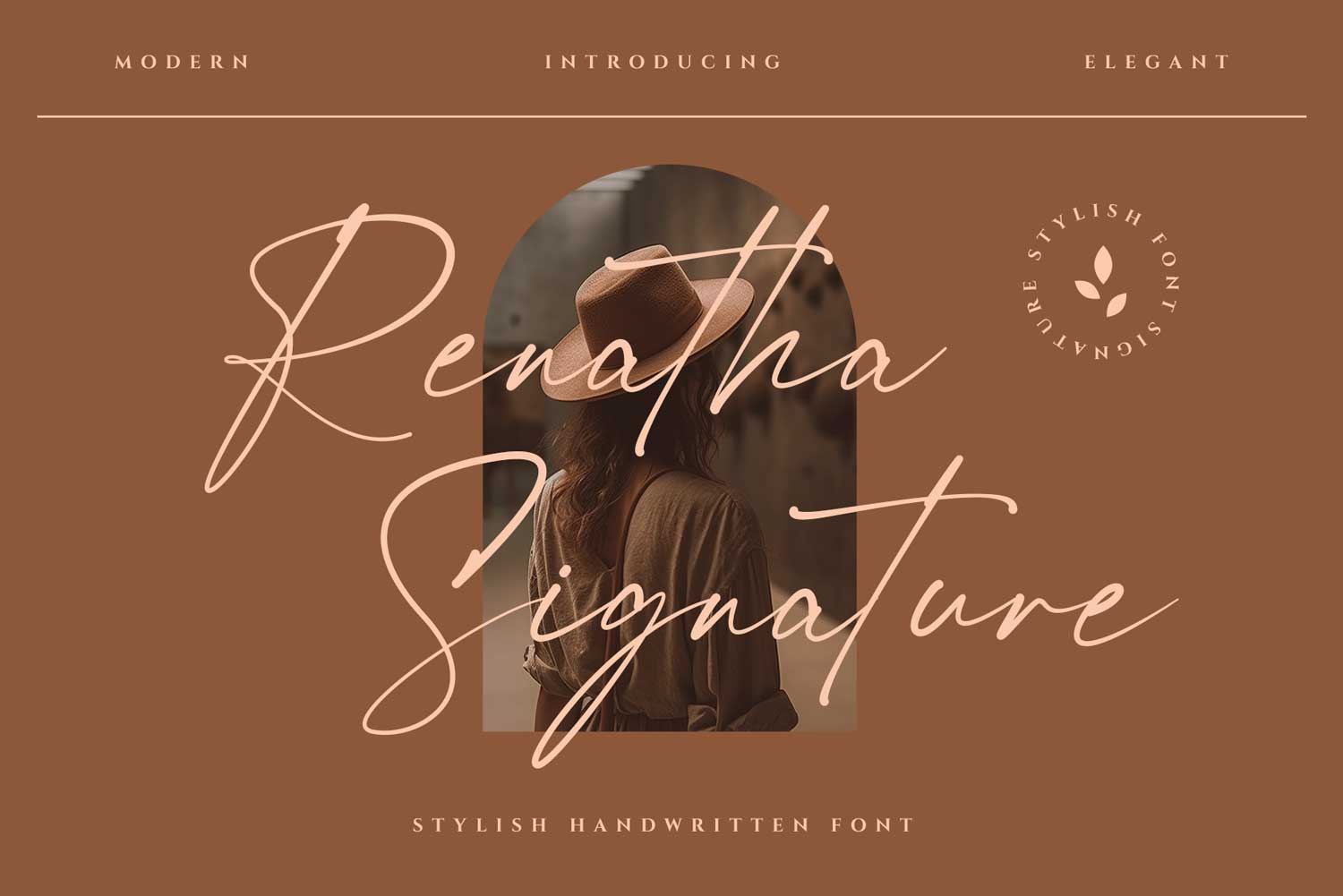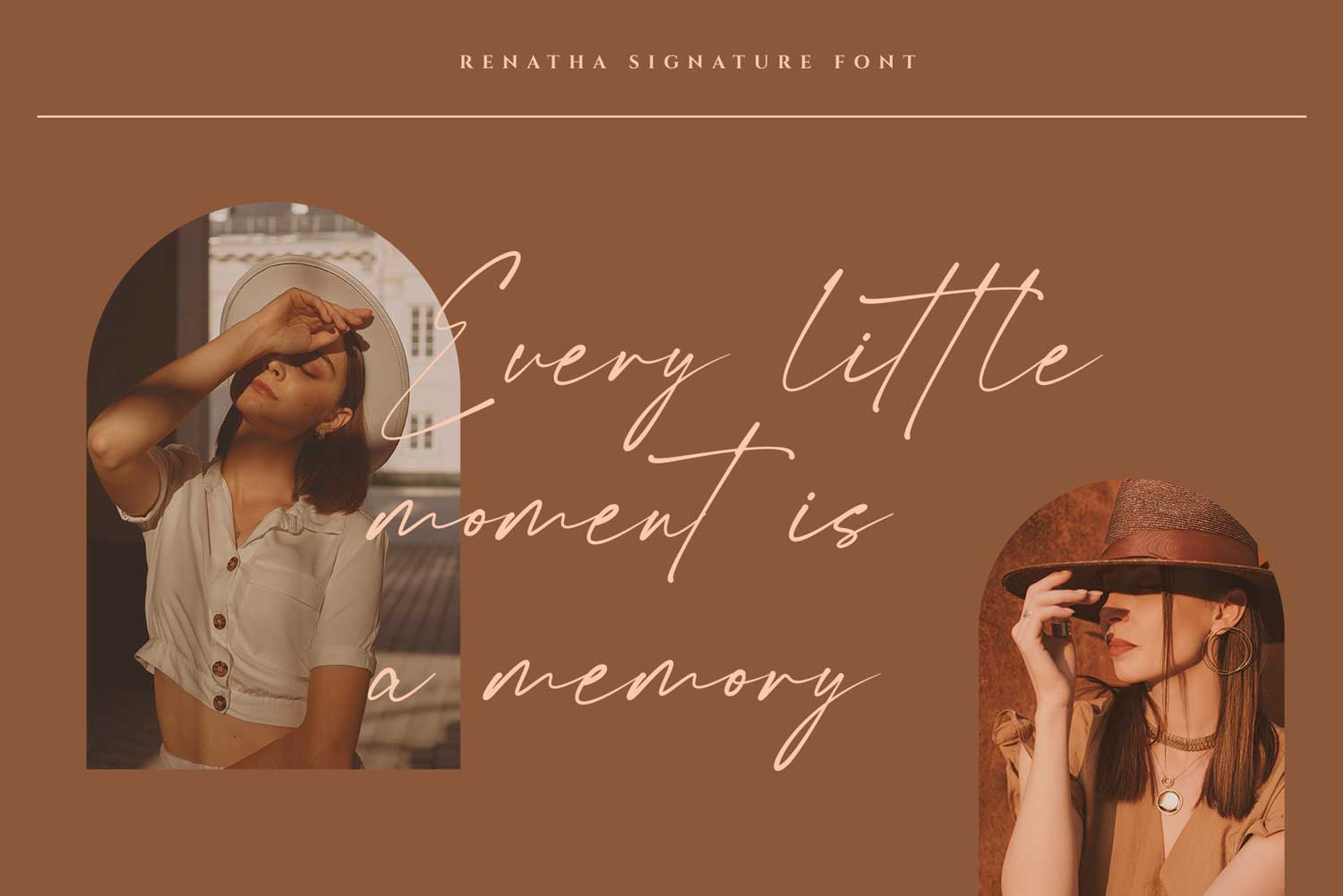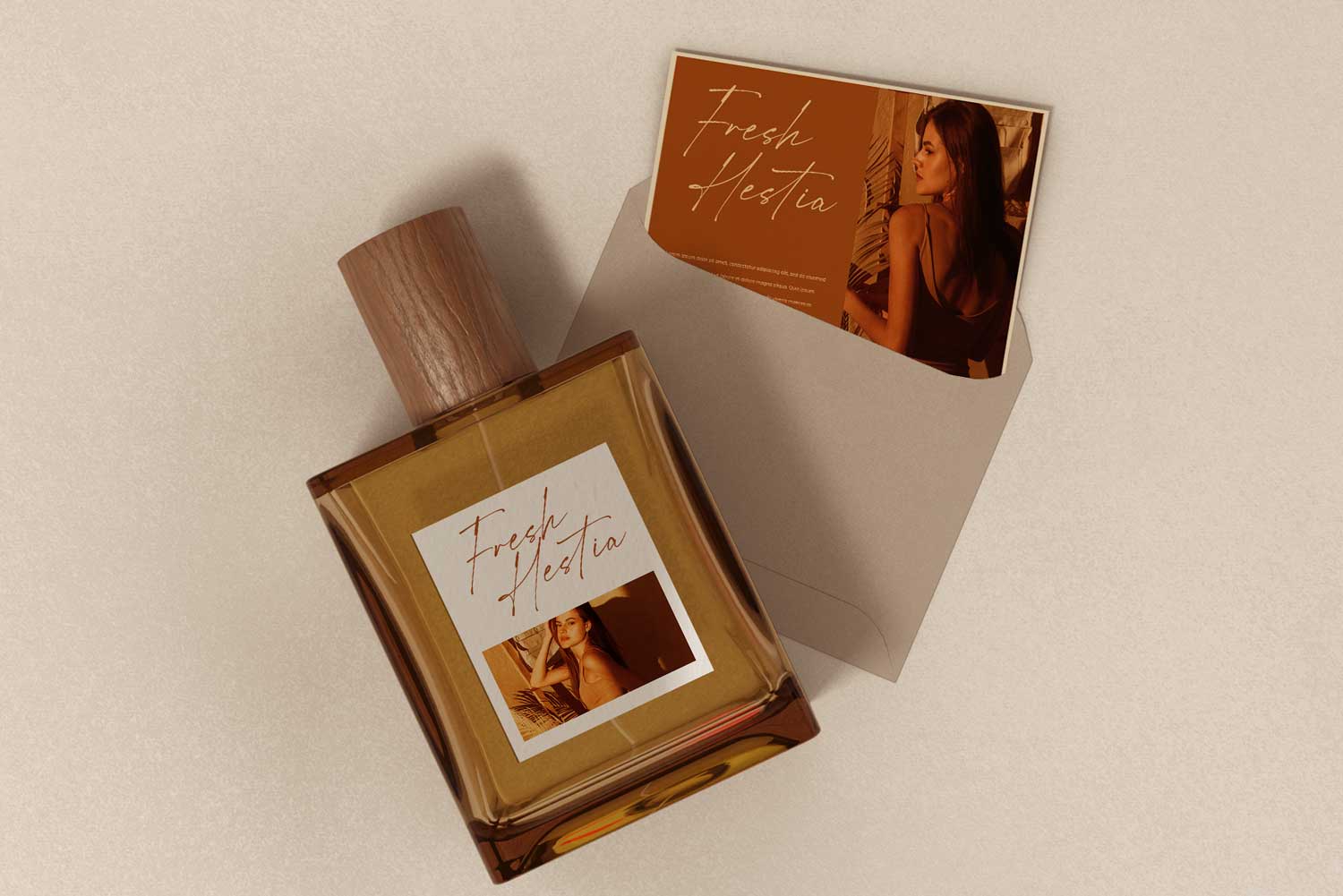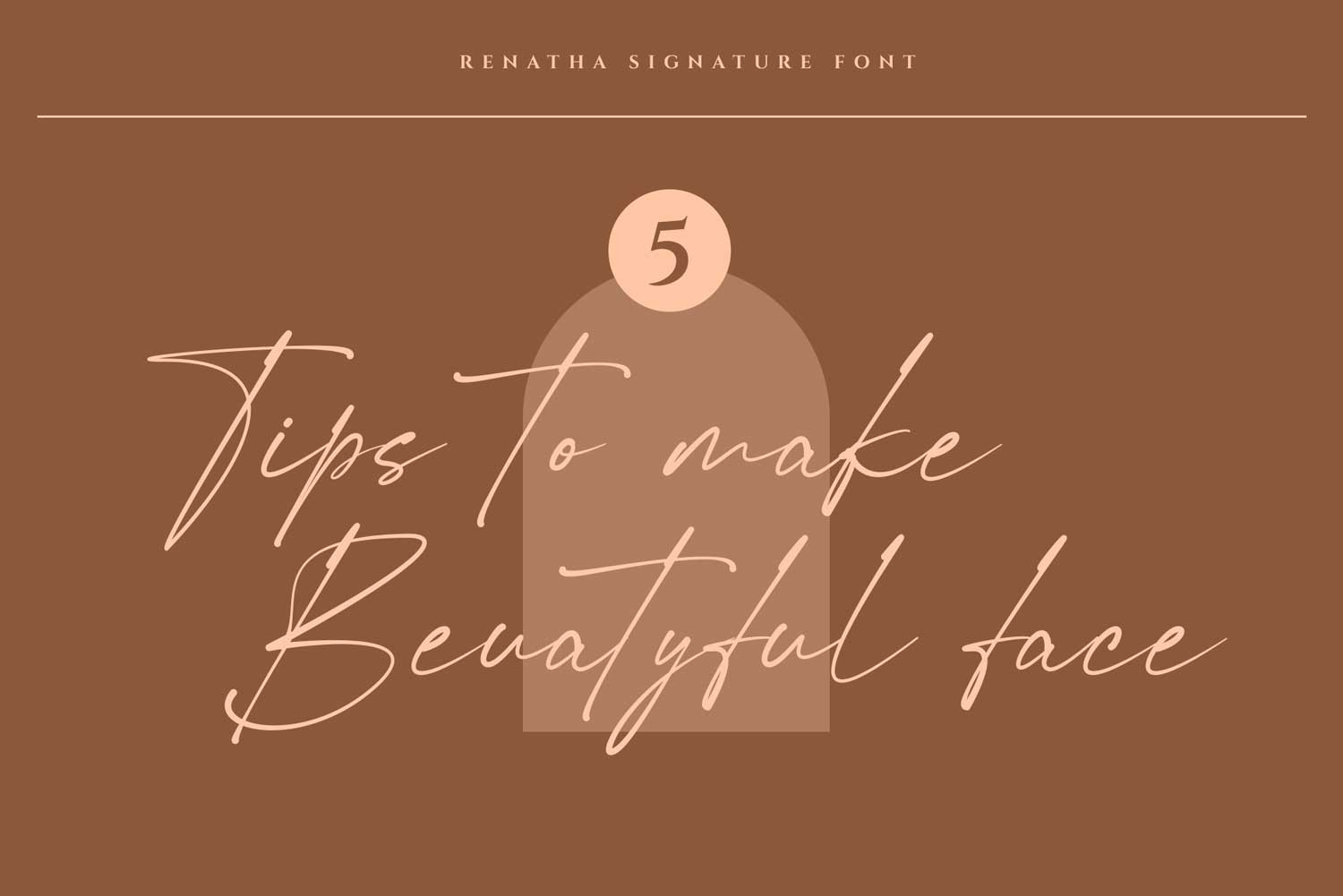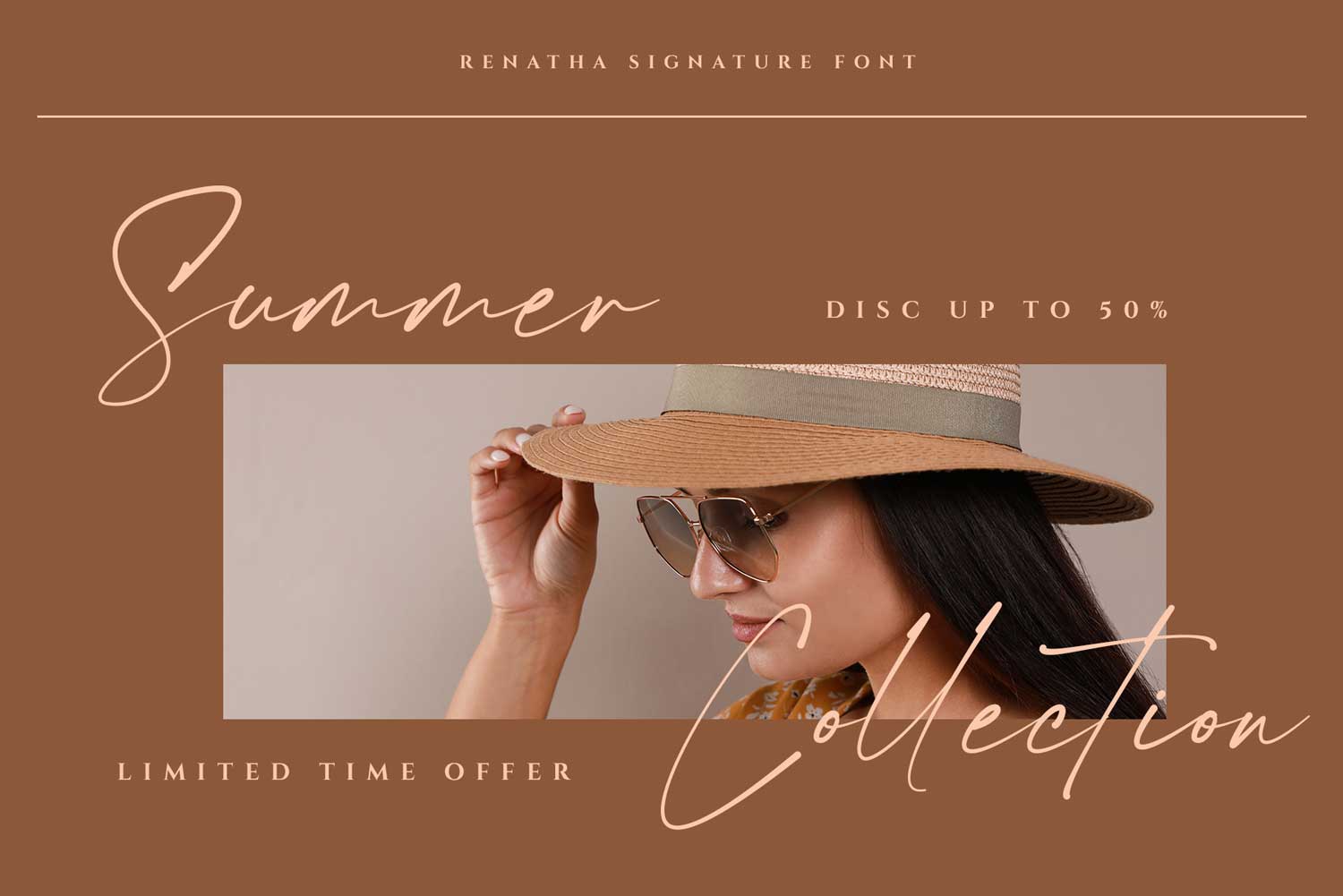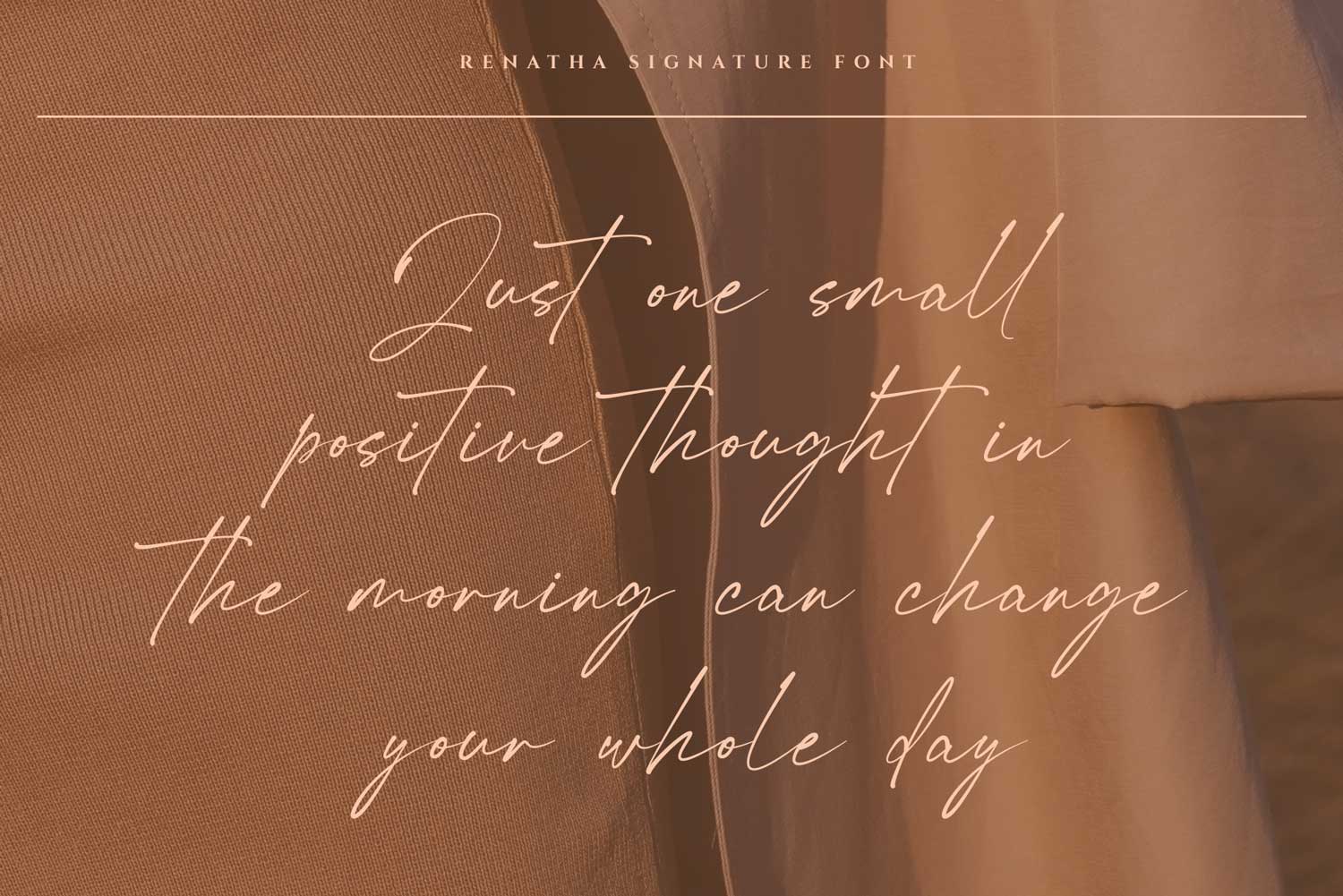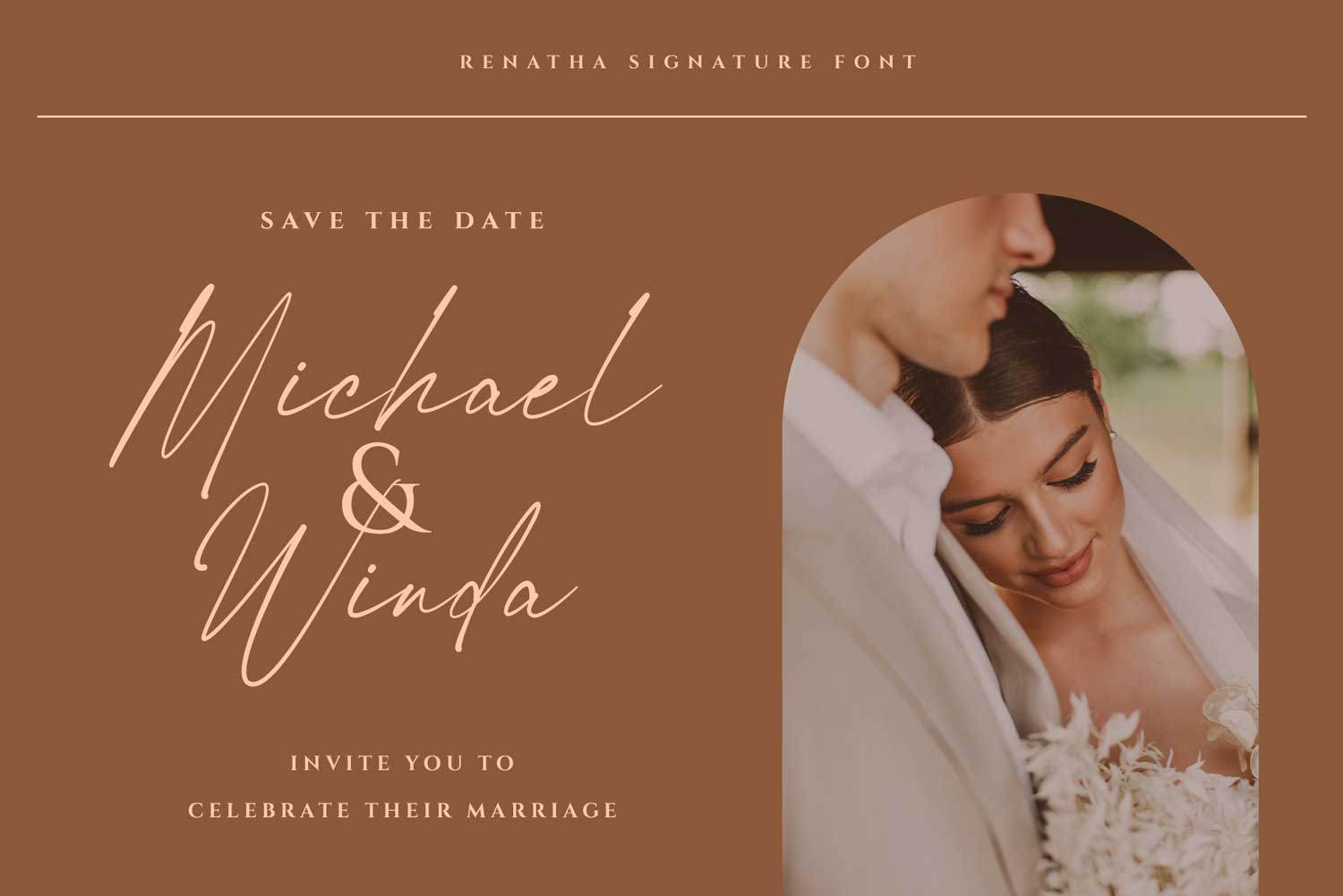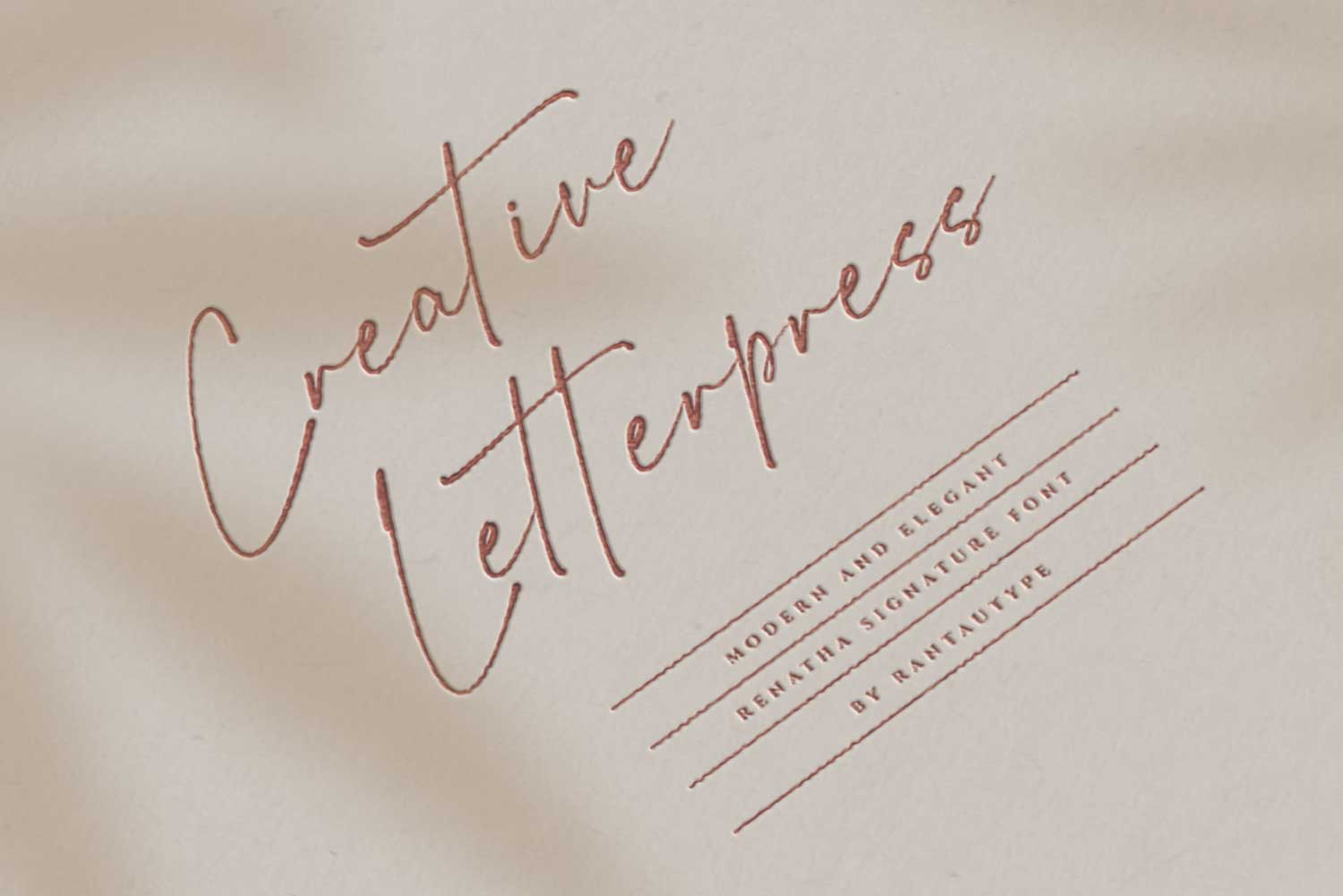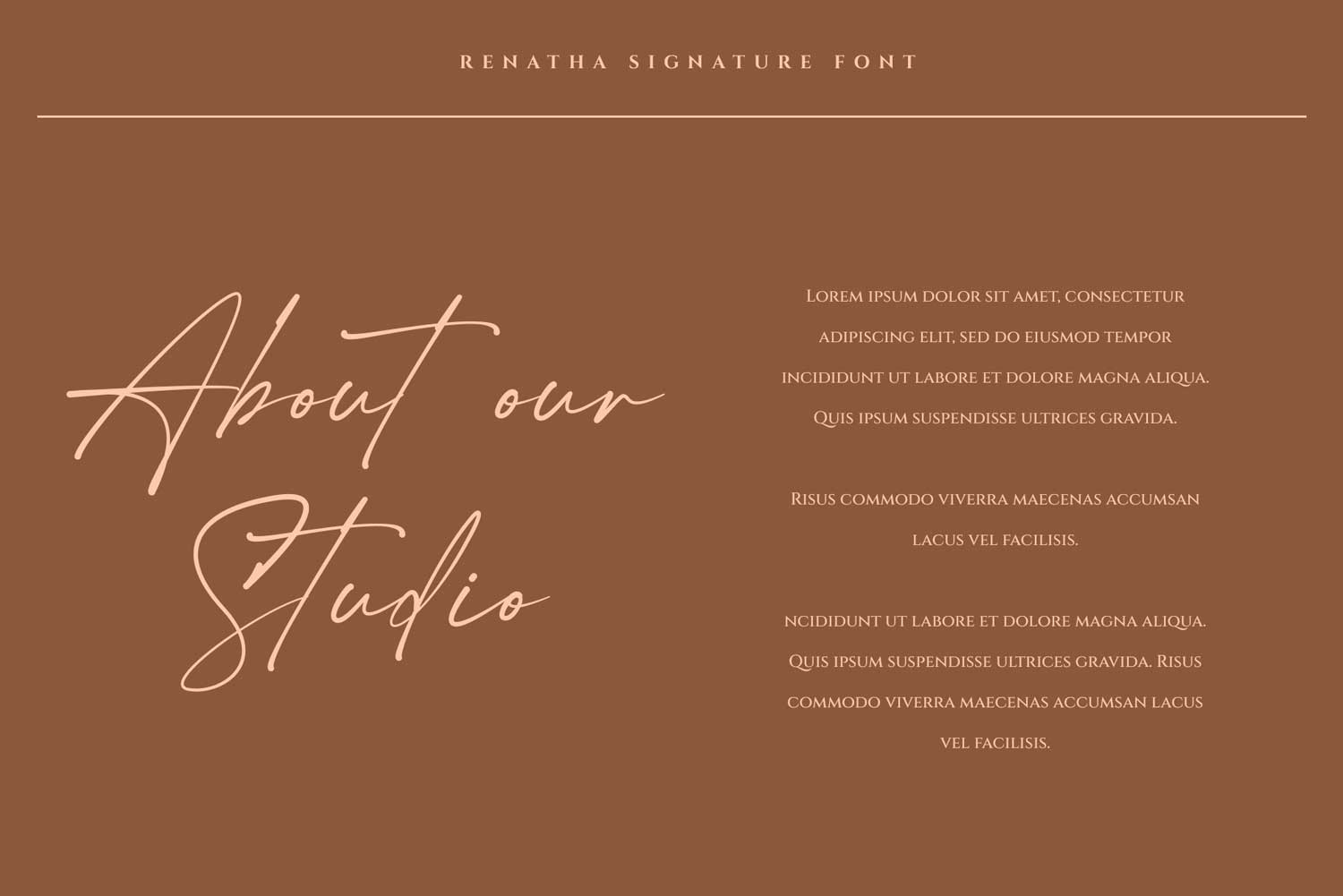
Renatha Signature Font
This font is elegant style which can be interpreted professional. we keep this font looks elegant, luxury, premium, modern, readable, stylish, feminine, girly, catchy and easy to use.
Renatha Signature is the great choice for watermark on photography, signature or signature logo design, quotes, album cover, magazine, business card and many other design project. Renatha Signature here to make your work to high level!!!
• ligature
• Alternate